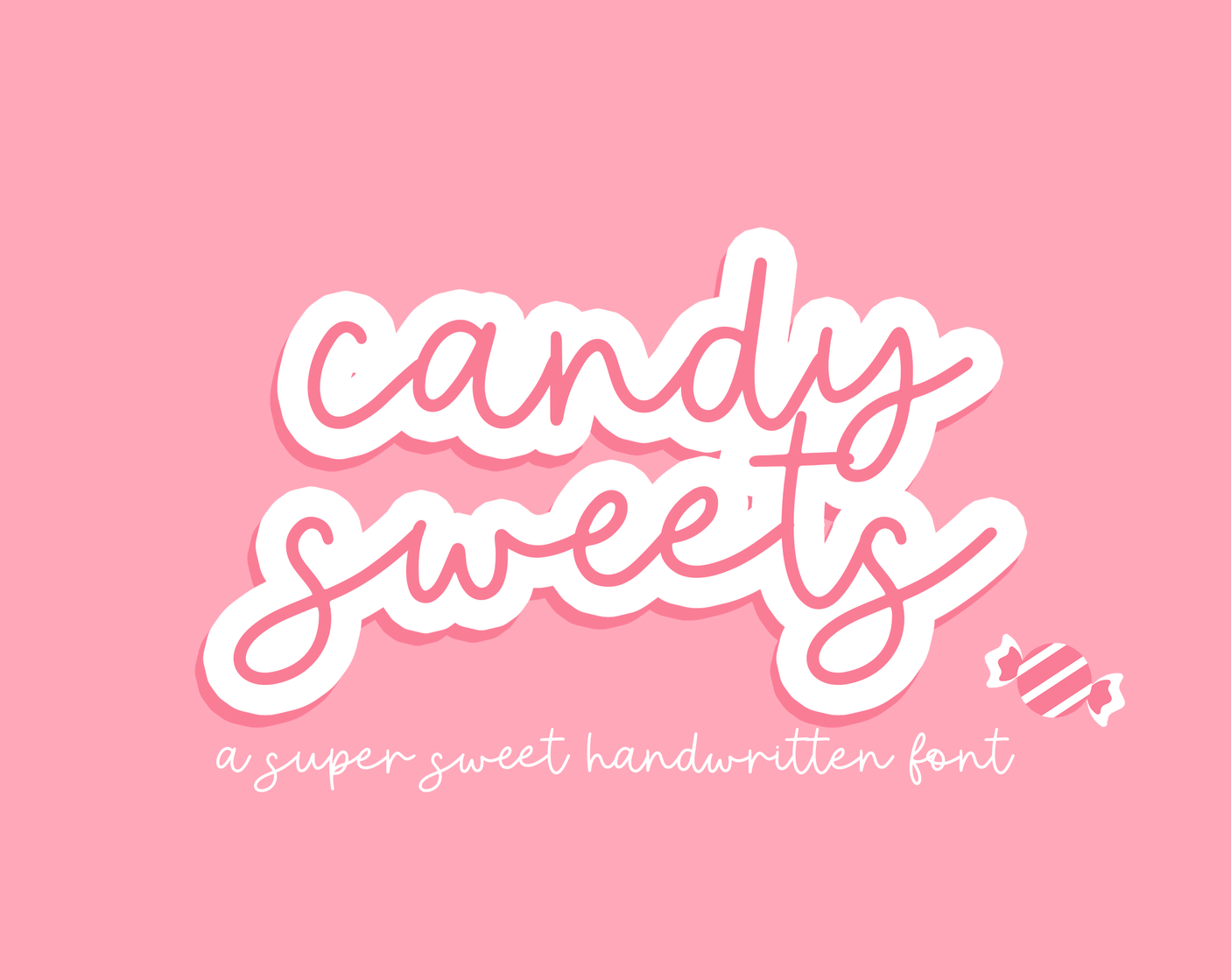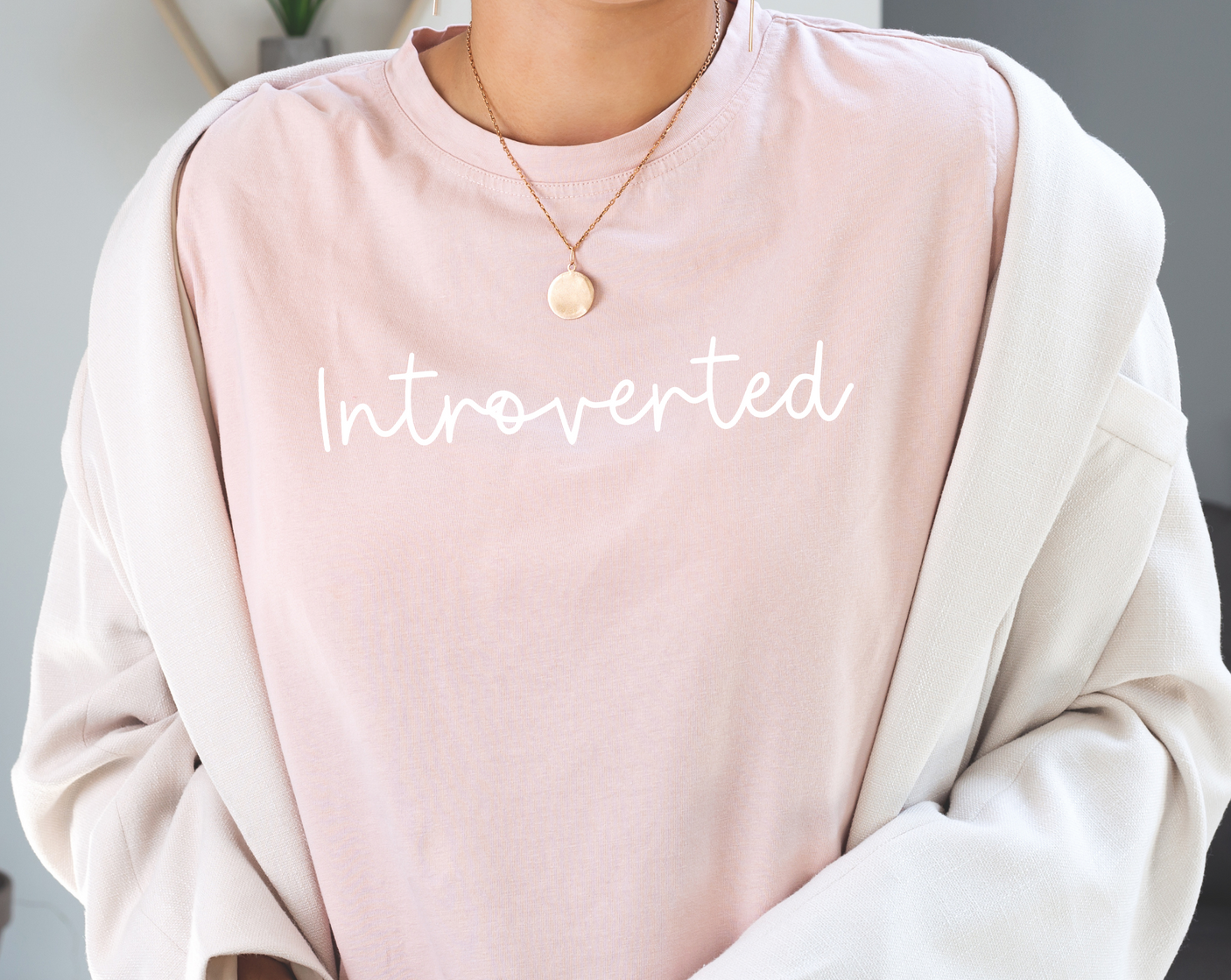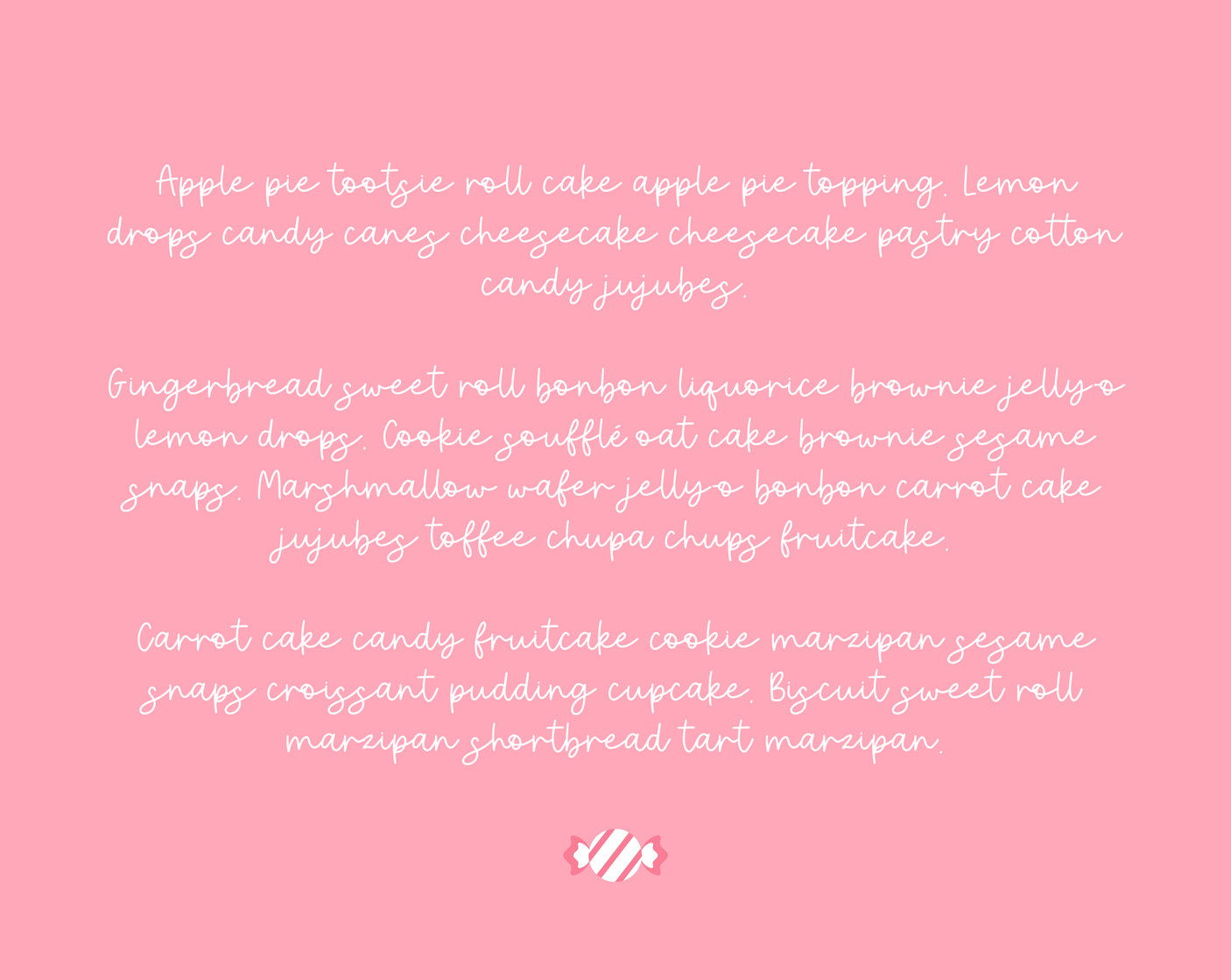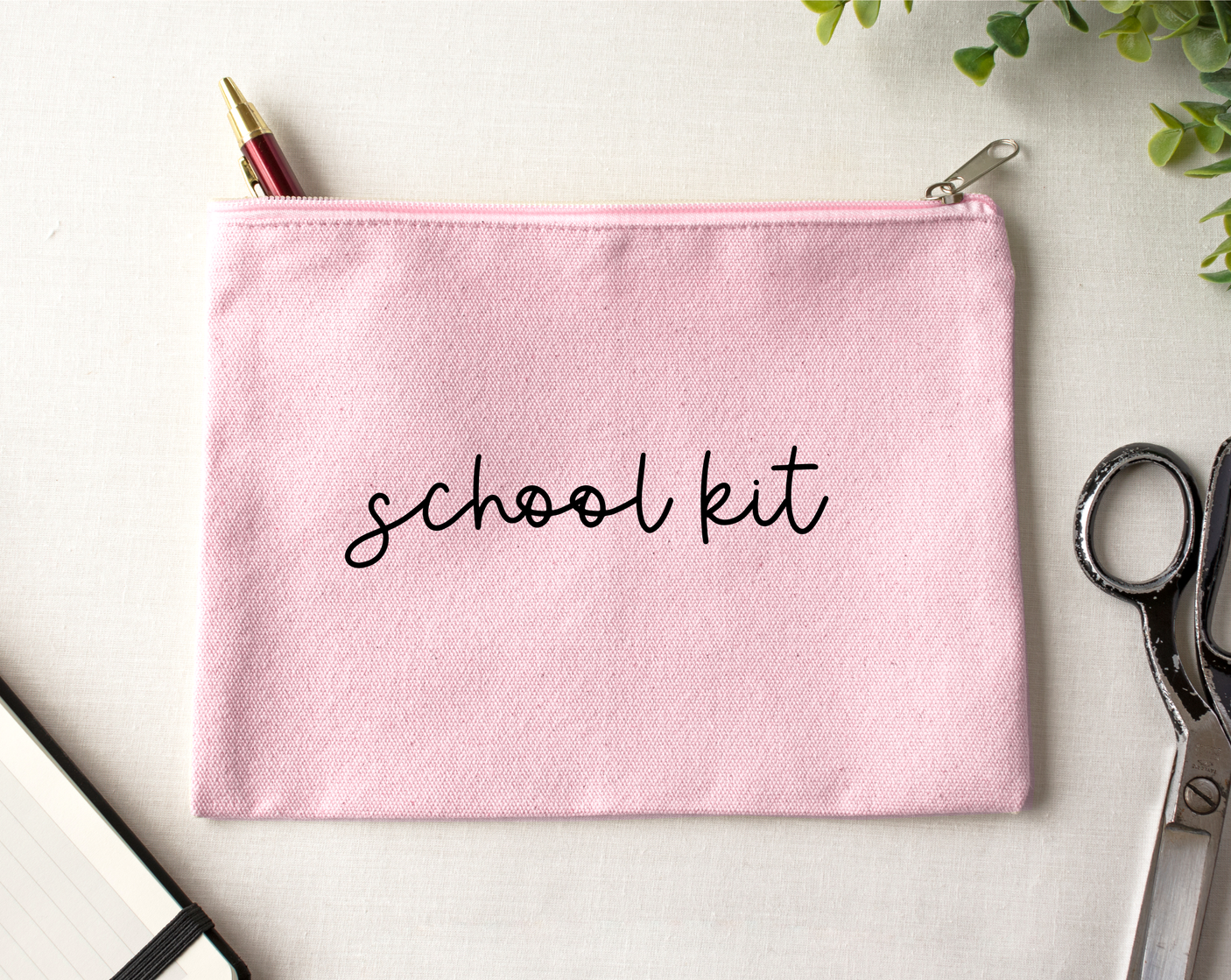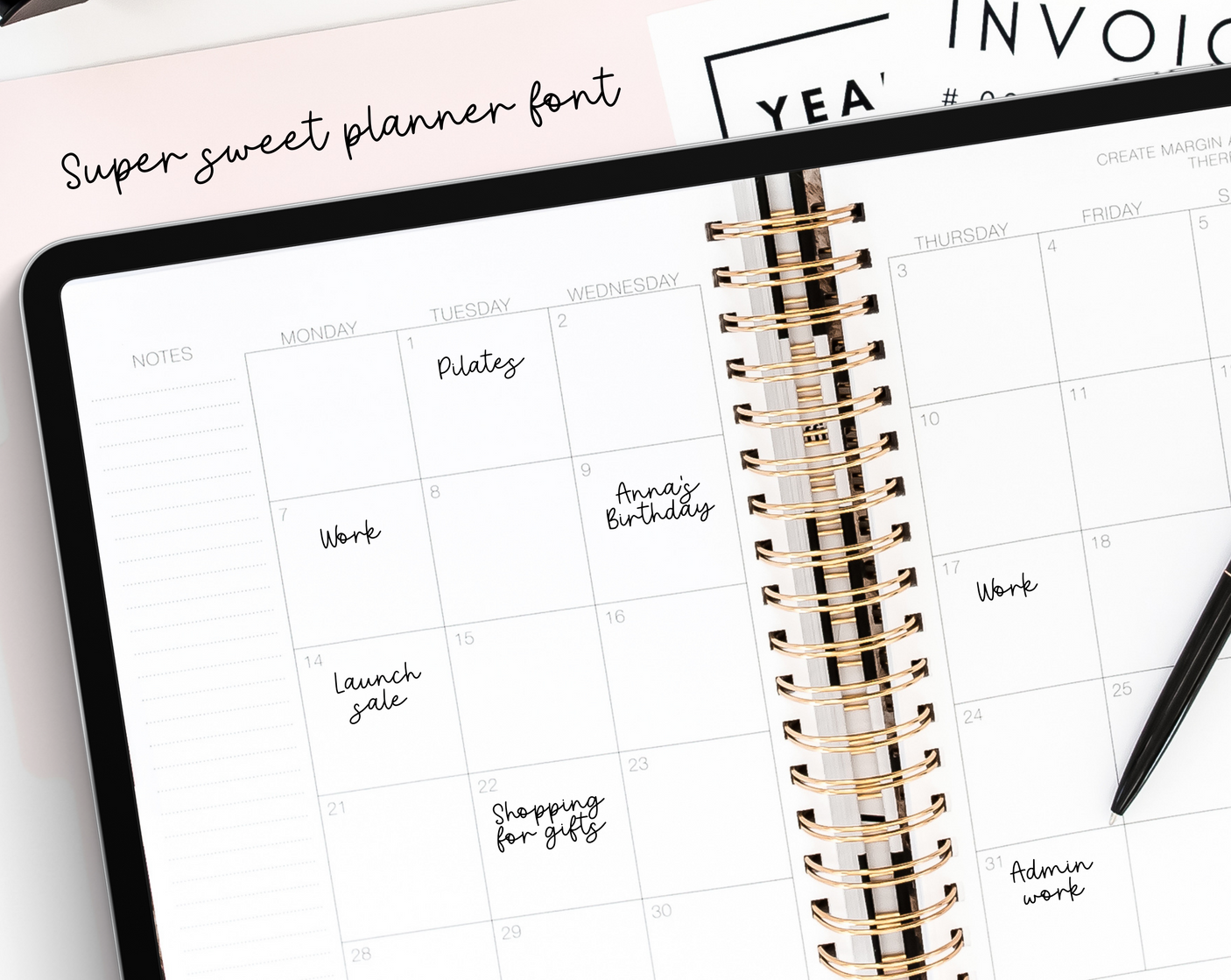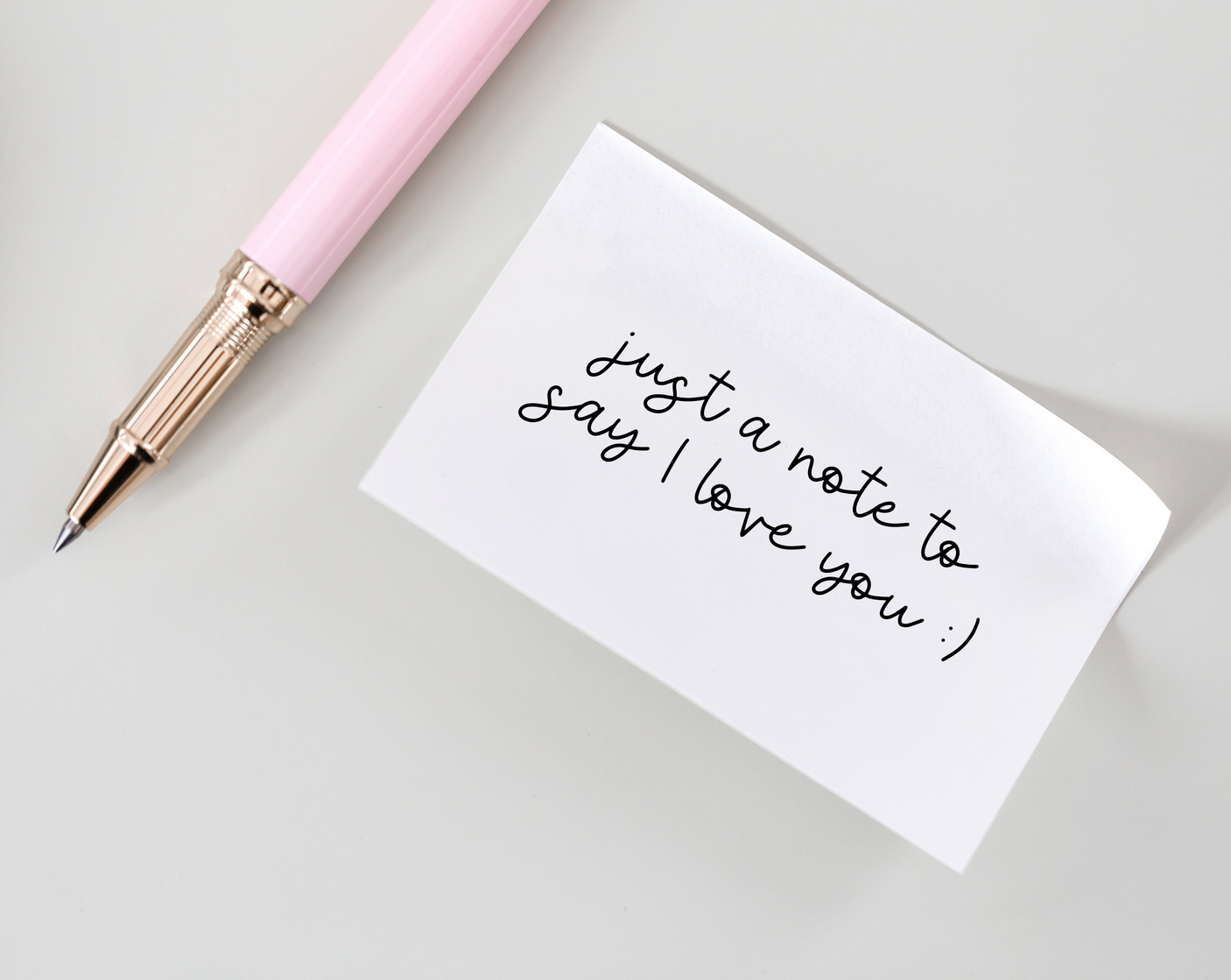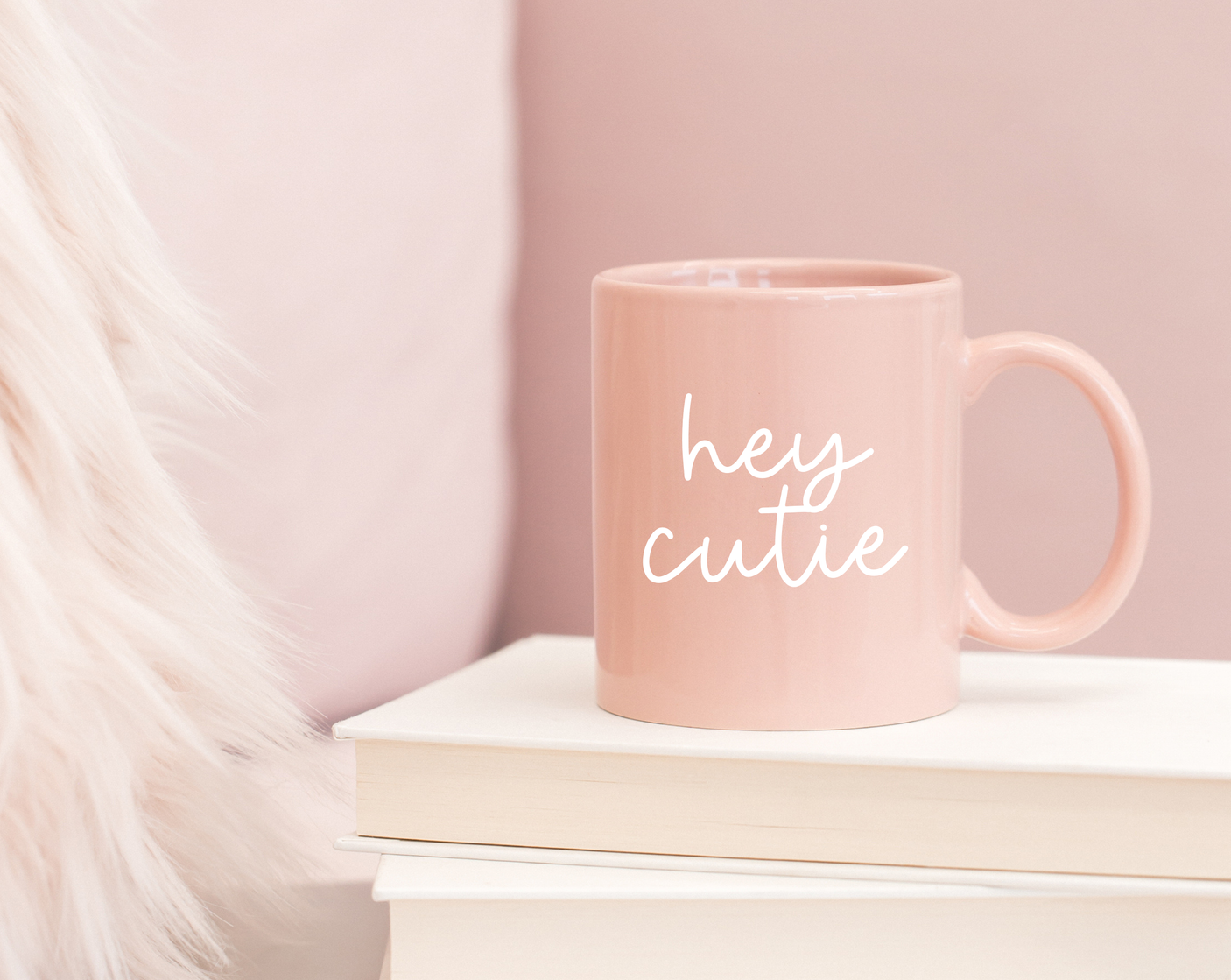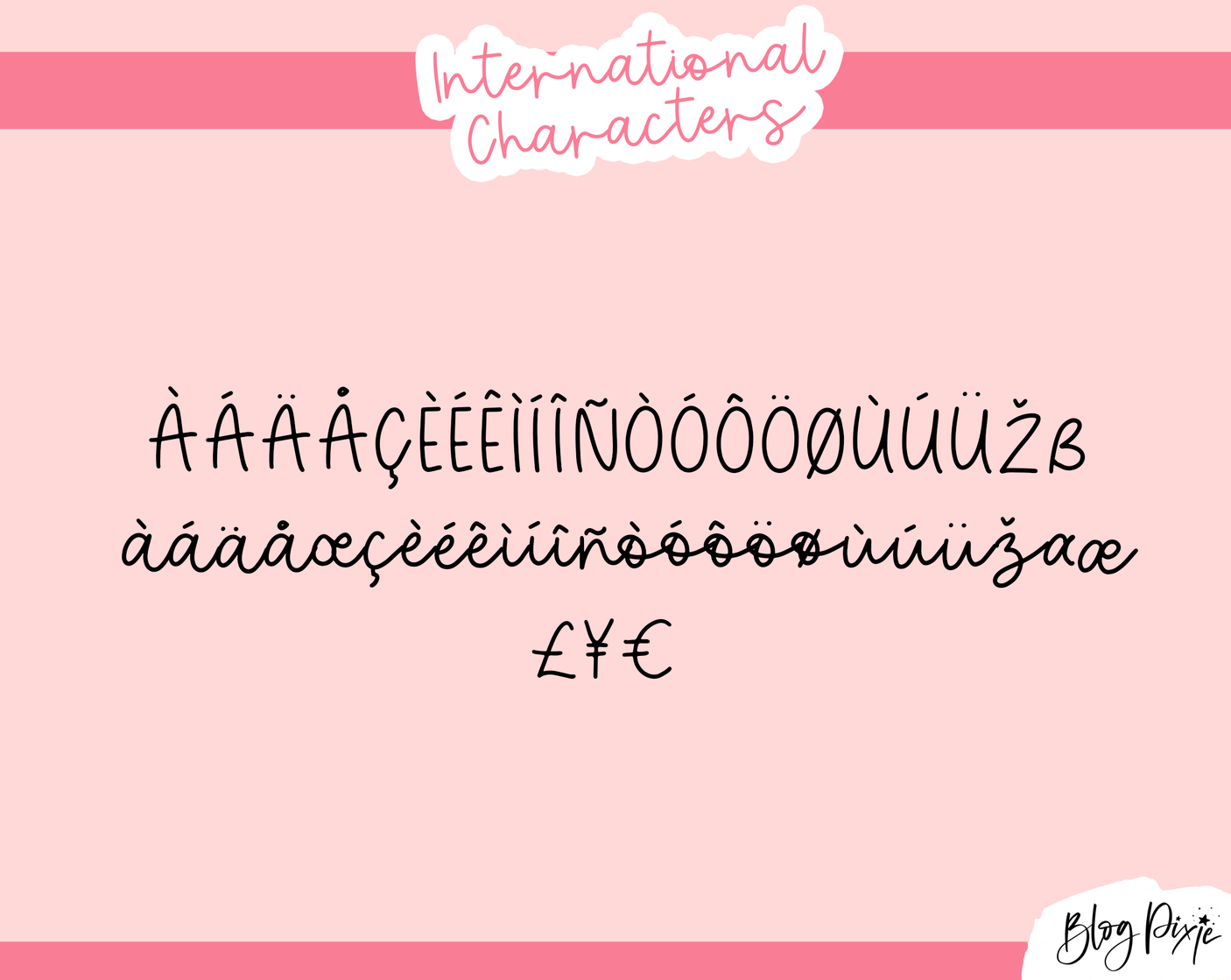
Candy Sweets Font
Candy Sweets is a cute, cursive handwriting font by Design Pixie. A great addition to add to your collection, this font can be used for Cricut, Procreate, Goodnotes, iPad and more. It’s a neat handwritten bouncy font for digital planning, note-taking, logos, crafty work and digital projects.